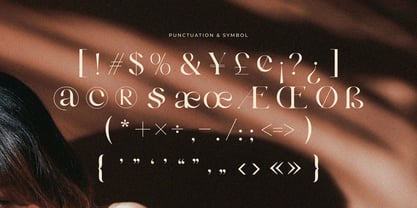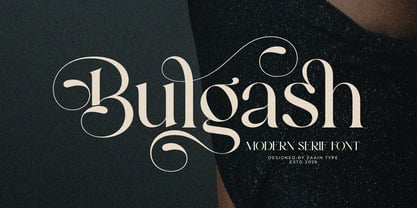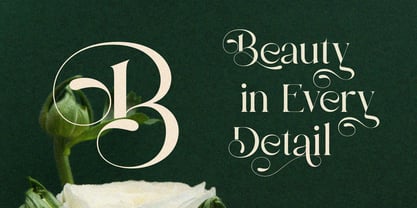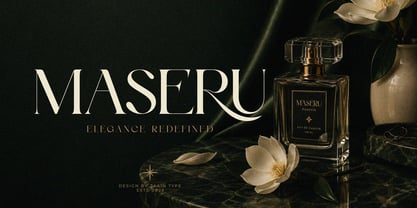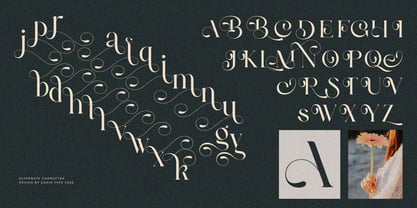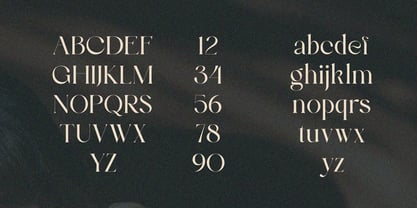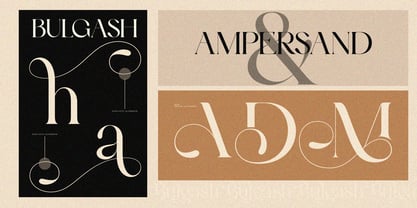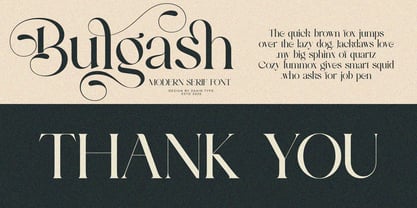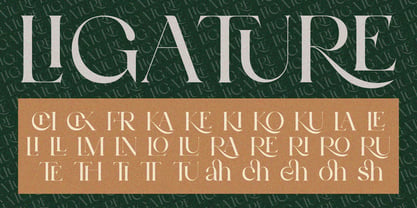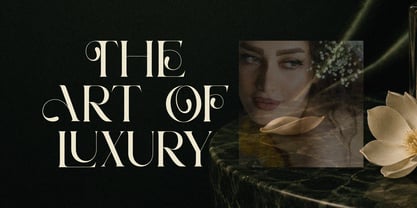
Bulgash
La familia tipográfica Bulgash fue diseñada por Ju Naen y publicada por Zaain Type. Bulgash contiene 2 estilos y opciones de paquete familiar.
Bulgash is an elegant serif typeface that blends classic sophistication with a refined contemporary character. Its graceful proportions, high-contrast strokes, and carefully crafted letterforms create a luxurious and polished appearance.
Perfect for fashion branding, editorial design, luxury logos, beauty products, perfume packaging, invitations, magazines, and premium stationery, Bulgash adds a timeless and sophisticated touch to every design. Its distinctive details make it especially suitable for projects that require an elegant and memorable visual identity